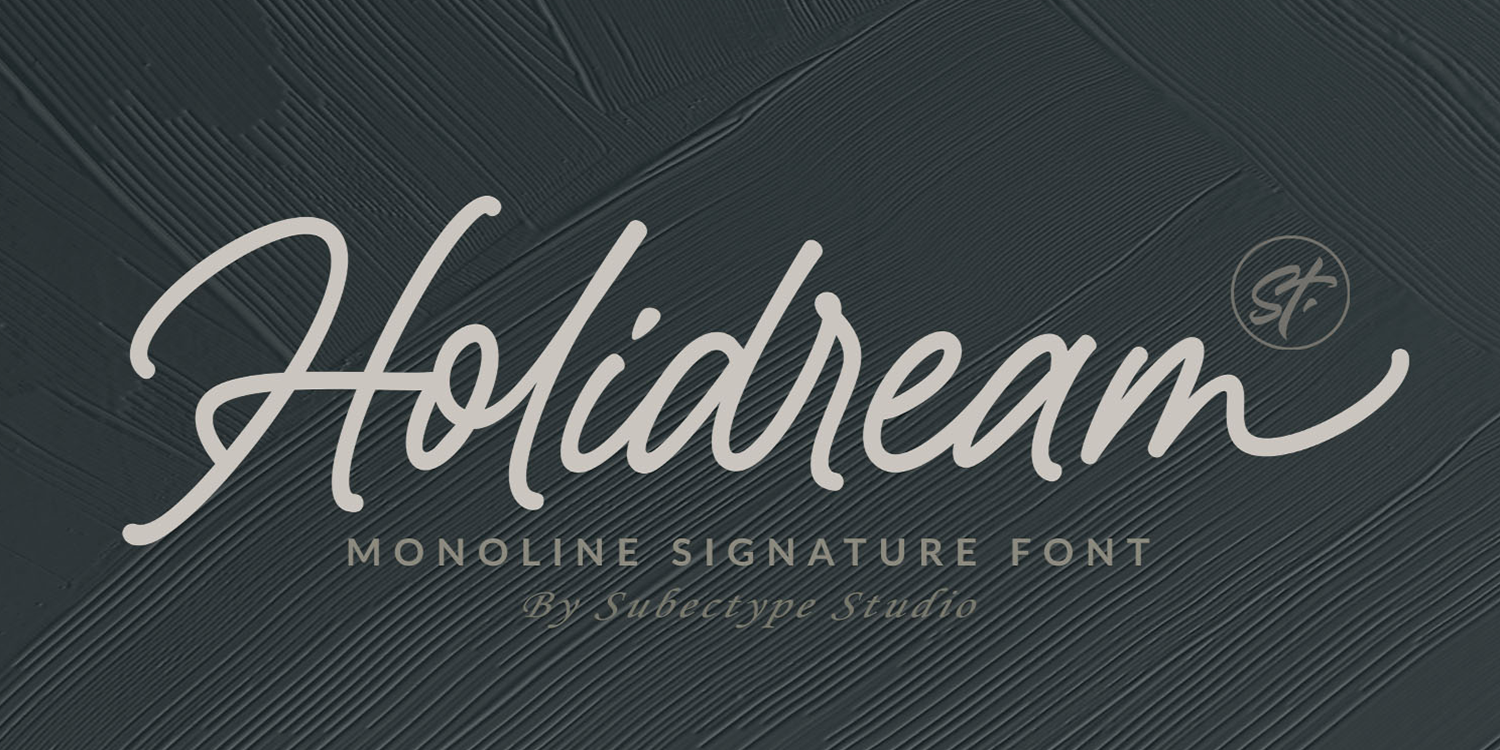
Holidream Font is perfect for travel agency branding, vacation resort promotions, dreamy destination marketing, luxury cruise advertisements, tropical paradise campaigns, romantic getaway packages, holiday planning services, wanderlust blog designs, escape adventure tours, and any project requiring vacation bliss with dreamy travel sophistication and wanderlust-inspiring elegance.
What makes Holidream Font exciting is its dreamy escapism and vacation enchantment that captures the magical anticipation of holiday adventures and the blissful relaxation of perfect getaways. The typeface features flowing, cloud-like letterforms with gentle curves and ethereal details that evoke the peaceful serenity of tropical beaches and the romantic allure of distant destinations. Its dreamy character design speaks to audiences who crave travel experiences, vacation relaxation, and the transformative power of holiday adventures, making it perfect for travel brands seeking to communicate wanderlust, luxury escape, and the irresistible promise of dream vacations that create lifelong memories and rejuvenating experiences.
Holidream Font family includes light, regular, and medium weights with complete character sets featuring uppercase and lowercase letters, vacation-inspired numerals, dreamy punctuation marks, and tropical decorative elements. The typeface incorporates travel design principles and vacation aesthetic sensibilities that enhance its escapist appearance while maintaining excellent readability across all tourism applications and travel-focused design projects.
Whether you're creating travel brand identity, designing vacation marketing materials, or developing wanderlust-inspiring campaigns, Holidream Font Free Download provides the perfect typographic foundation that ignites travel dreams and vacation desires. The font's dreamy appeal and vacation character make it particularly effective for travel agencies, resort destinations, and luxury tourism brands. Its escapist aesthetics translate beautifully across travel brochures, destination signage, and digital platforms, ensuring your brand communicates the kind of authentic wanderlust and vacation magic that resonates with travelers seeking extraordinary experiences and the rejuvenating power of dream holiday adventures.